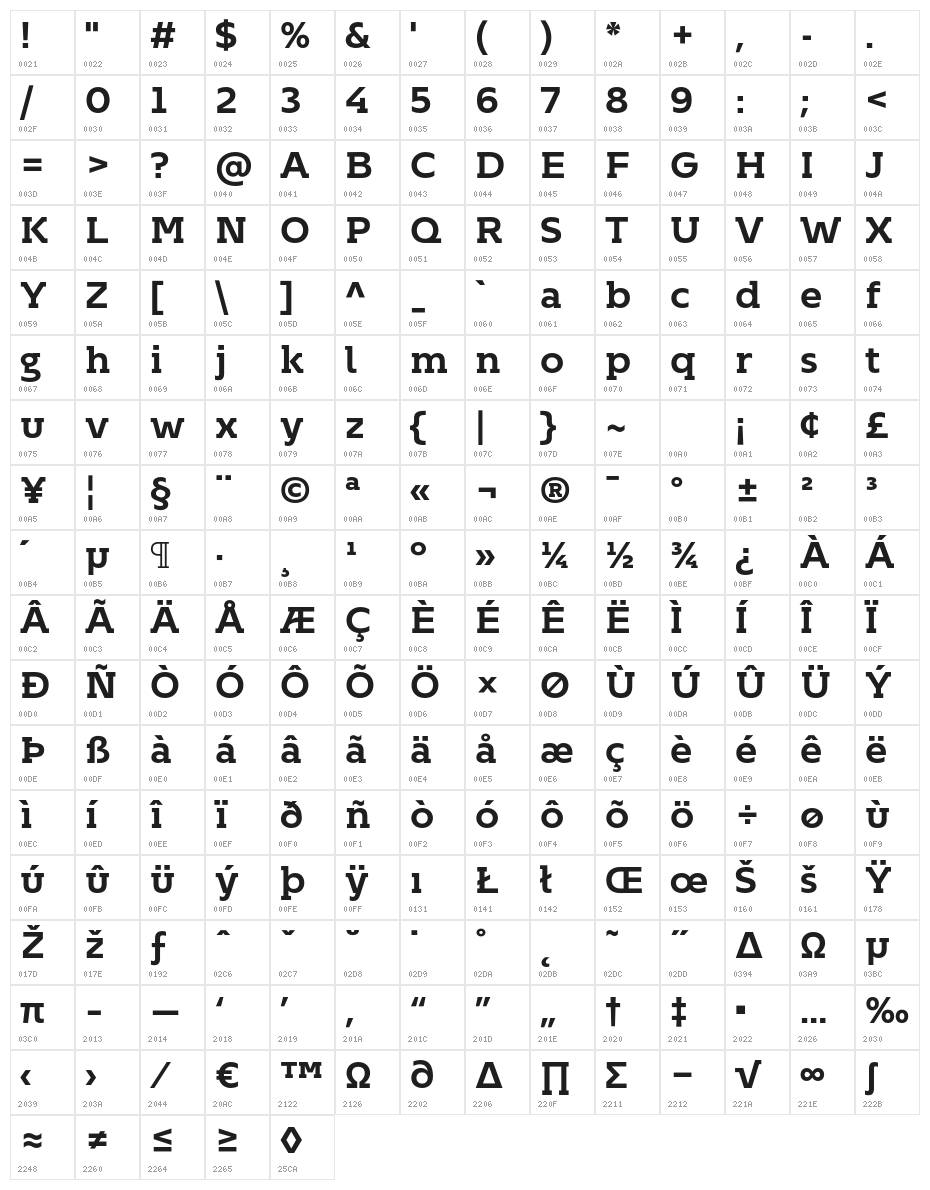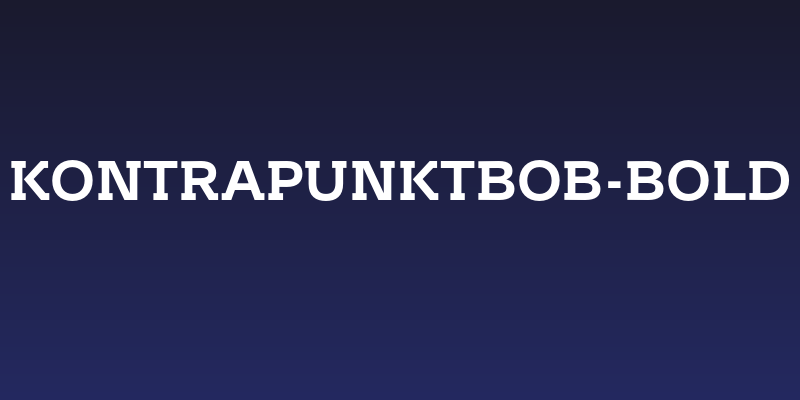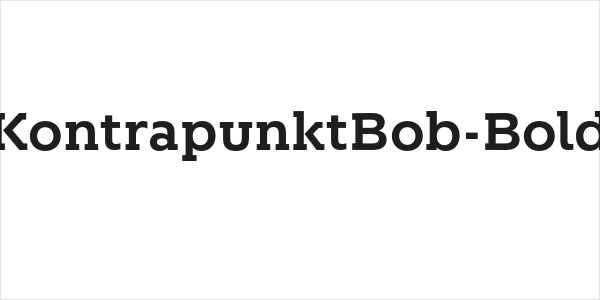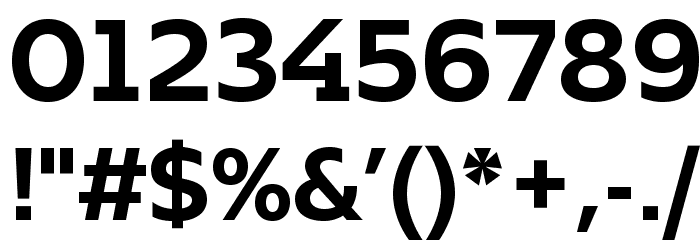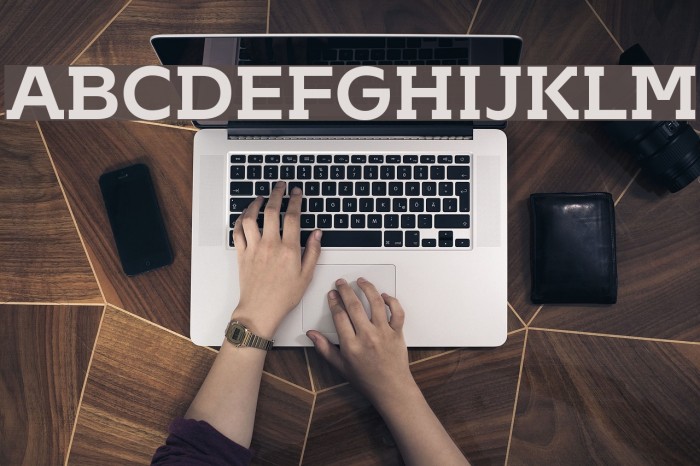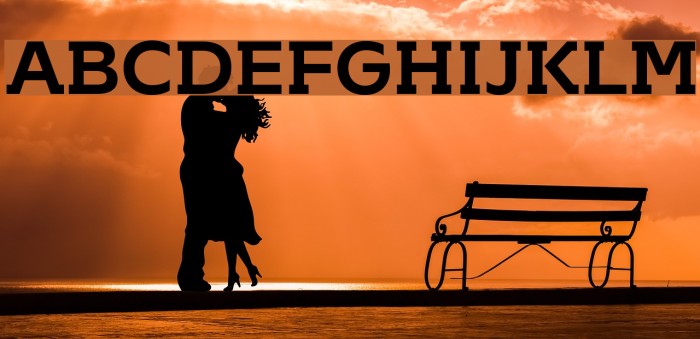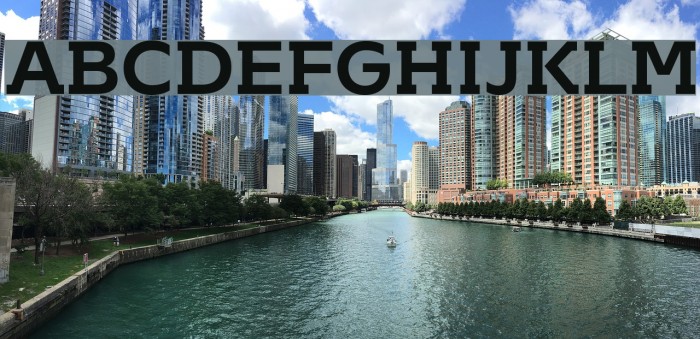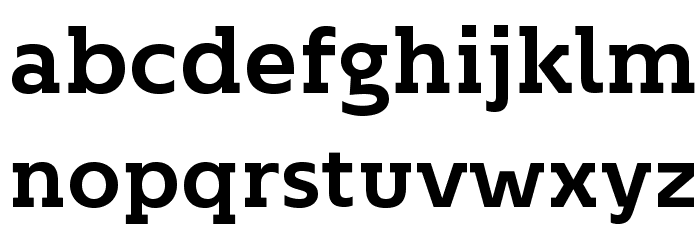
KontrapunktBob-Bold Font
KontrapunktBob-Bold Description
This font exhibits a bold and robust character with strong geometric shapes and clean lines. The uppercase letters are uniform in height, giving a sense of stability and strength. The lowercase letters maintain a consistent roundness, contributing to a friendly yet assertive appearance. The numerals are clear and easily distinguishable, making them suitable for various applications. Special characters are well-defined, ensuring versatility in design projects. The overall design is modern and straightforward, making it ideal for contemporary branding and communication.